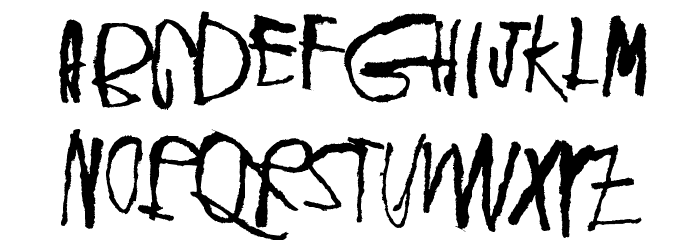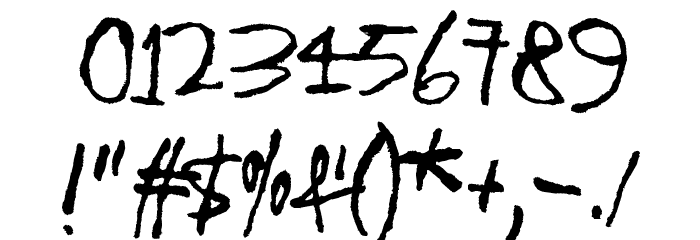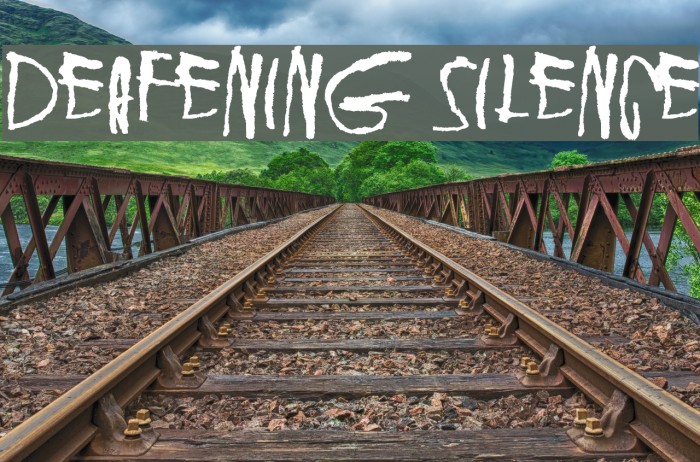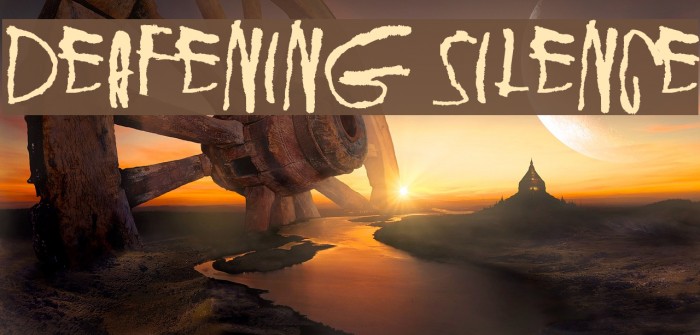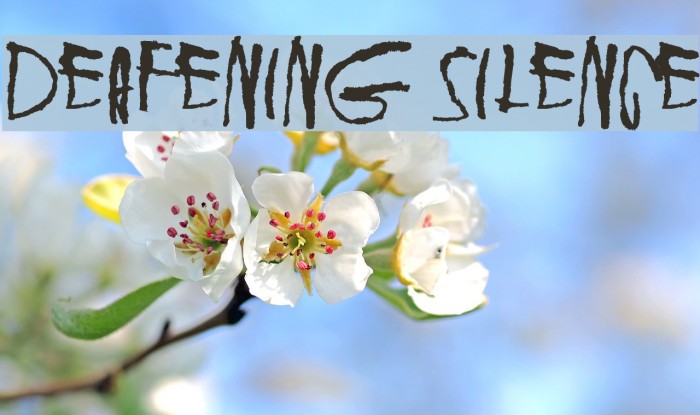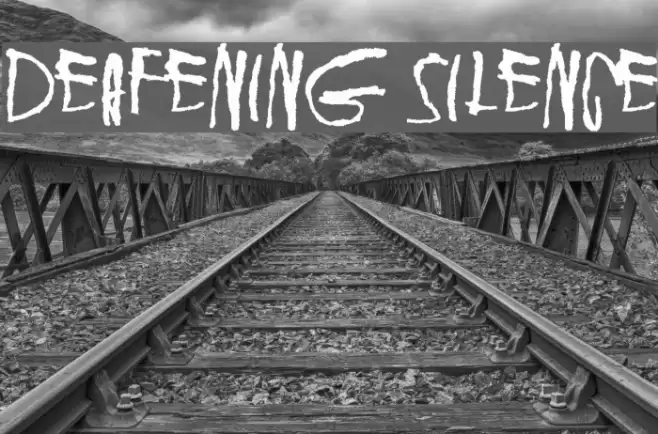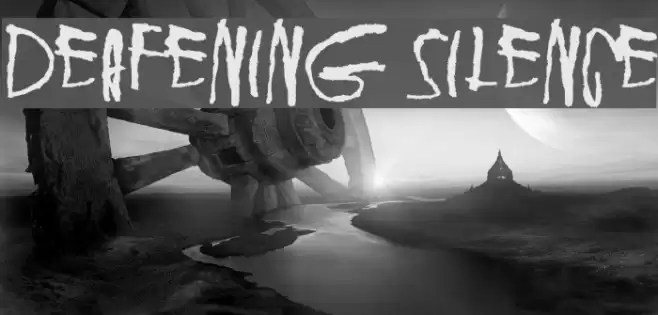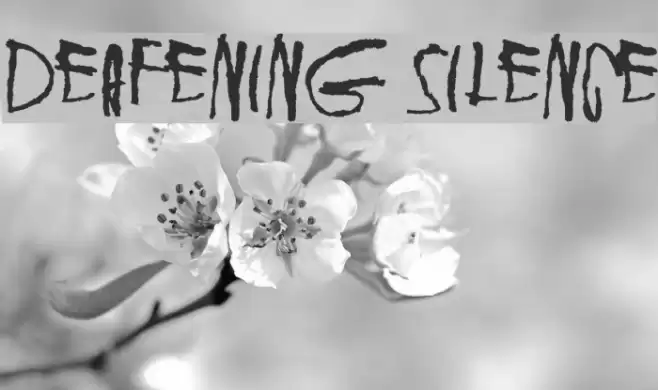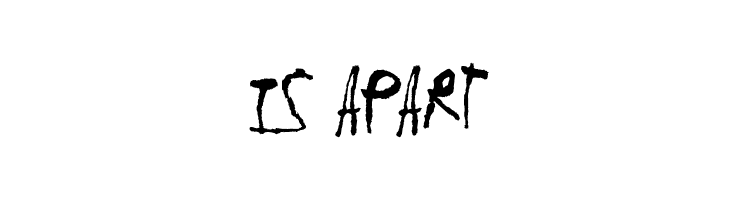
Deafening Silence Font
This font exudes a raw, expressive energy with its bold, hand-drawn style. The characters are irregular and dynamic, giving a sense of movement and spontaneity. Each letter has a unique form, with varying stroke thickness that adds to its artistic flair. The uppercase and lowercase letters maintain a consistent style, while the numbers and special characters integrate seamlessly. This font's rough edges and uneven lines create a sense of urgency and emotion, making it perfect for projects that require a strong visual impact.
A bold, expressive hand-drawn font with dynamic, irregular characters.
- Proposed Projects: Ideal for album covers, street art-inspired designs, posters, and expressive branding.
- Use Case: Logos, Headlines, Artistic projects